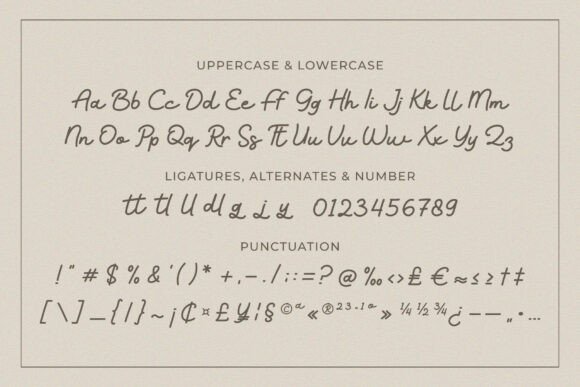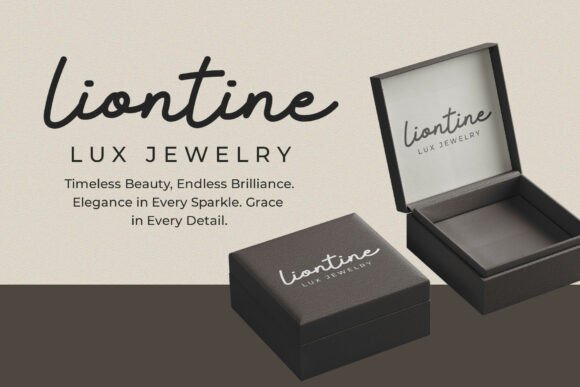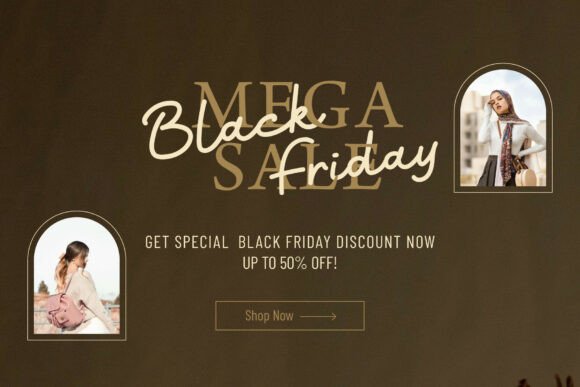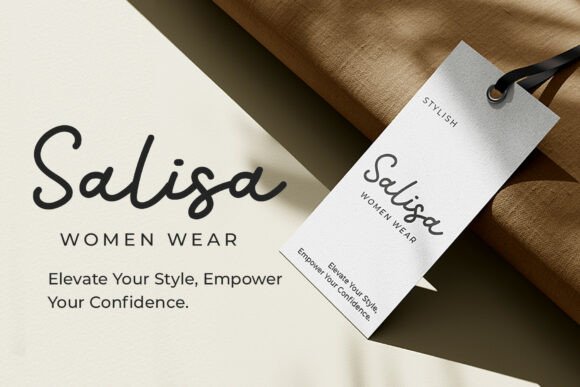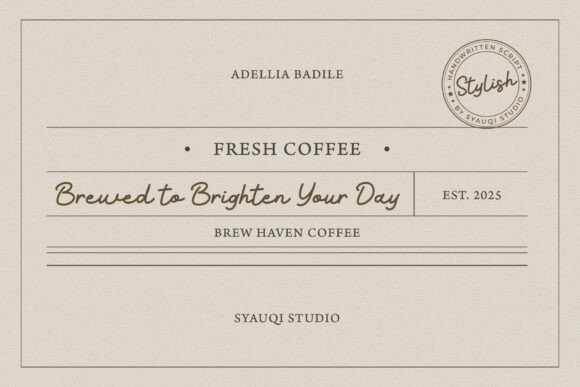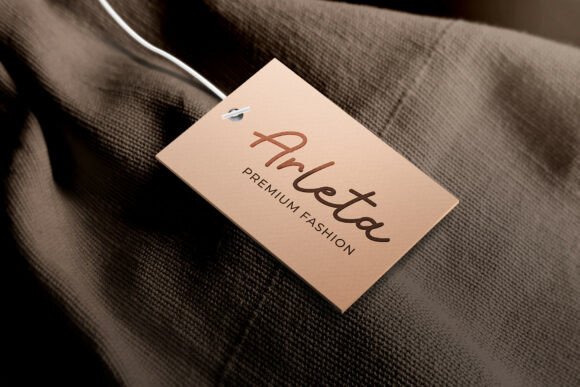
Introducing Adellia Badile: The Elegant Handwritten Script Font for Creative Projects
In the world of typography, a well-crafted font can elevate your creative projects from ordinary to extraordinary. Adellia Badile is a beautifully designed handwritten script font that embodies elegance and sophistication. With its smooth, flowing curves and natural charm, this font is perfect for designers and crafters looking to add a personal touch to their work.
The Characteristics of Adellia Badile
Adellia Badile boasts a unique blend of modern elegance and timeless style. Its delicate yet bold personality makes it an ideal choice for a wide range of creative projects. The font’s smooth, flowing curves give it a natural and organic feel, while its refined and classy look makes it perfect for high-end branding and design applications.
Perfect for Luxury Branding and Design
Adellia Badile is particularly well-suited for luxury branding and design projects. Its elegant and sophisticated style makes it perfect for:
- Fashion and Apparel Branding: Add a touch of elegance to your fashion brand with Adellia Badile. The font’s refined style makes it perfect for logos, labels, and packaging.
- Beauty and Cosmetics Marketing: Elevate your beauty brand with Adellia Badile’s sophisticated style. The font is ideal for product labels, advertisements, and marketing materials.
- Wedding Invitations: Make your wedding invitations truly special with Adellia Badile. The font’s elegant style creates a romantic and memorable impression.
- Luxury Perfume Packaging: Add a touch of sophistication to your perfume packaging with Adellia Badile. The font’s refined style makes it perfect for high-end perfume brands.
- Jewelry Designs: Elevate your jewelry designs with Adellia Badile’s elegant style. The font is perfect for logos, labels, and packaging.
Versatile and Multifaceted
Adellia Badile is a versatile font that can be used in a wide range of creative projects beyond luxury branding and design. Its elegant style makes it perfect for:
- Branding and Logos: Create a lasting impression with Adellia Badile’s refined style. The font is ideal for logos, business cards, and letterheads.
- Packaging and Stationery: Elevate your packaging and stationery with Adellia Badile’s elegant style. The font is perfect for product labels, invoices, and packaging materials.
- Candles and Home Decor: Add a touch of elegance to your candle and home decor products with Adellia Badile. The font’s refined style makes it perfect for labels, packaging, and marketing materials.
- Greeting Cards and Invitations: Make your greeting cards and invitations truly special with Adellia Badile. The font’s elegant style creates a memorable and lasting impression.
Why Choose Adellia Badile?
With so many fonts available, why choose Adellia Badile? Here are just a few reasons why this font stands out:
- Unique and Elegant Style: Adellia Badile boasts a unique and elegant style that sets it apart from other fonts.
- Versatile and Multifaceted: The font can be used in a wide range of creative projects, from luxury branding and design to packaging and stationery.
- Easy to Read and Understand: Despite its elegant style, Adellia Badile is easy to read and understand, making it perfect for body text and headlines.
Adellia Badile is a beautifully crafted handwritten script font that embodies elegance and sophistication. With its smooth, flowing curves and natural charm, this font is perfect for designers and crafters looking to add a personal touch to their creative projects. Whether you’re working on luxury branding and design, packaging and stationery, or candles and home decor, Adellia Badile is the perfect choice. Its unique and elegant style, versatility, and ease of use make it an ideal font for a wide range of applications.